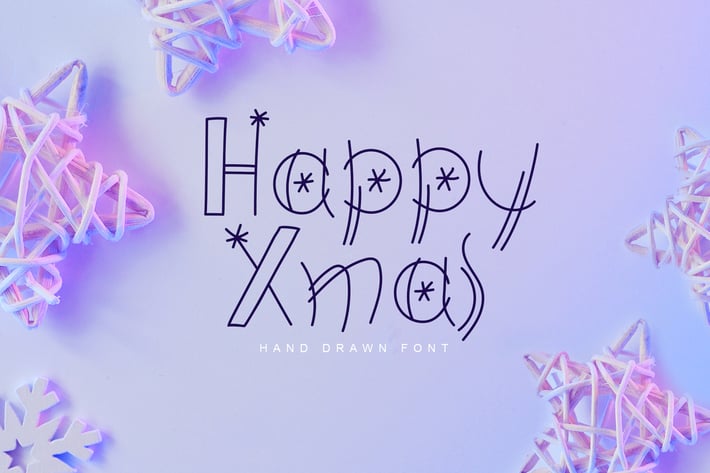
Happy Xmas Hand Drawn Font
Happy Xmas Hand Drawn Font is modern font.
This winter Font with snowflakes element is beautiful instrument for designers, blogers and everybody who loves doodle scandinavian or hygge style.